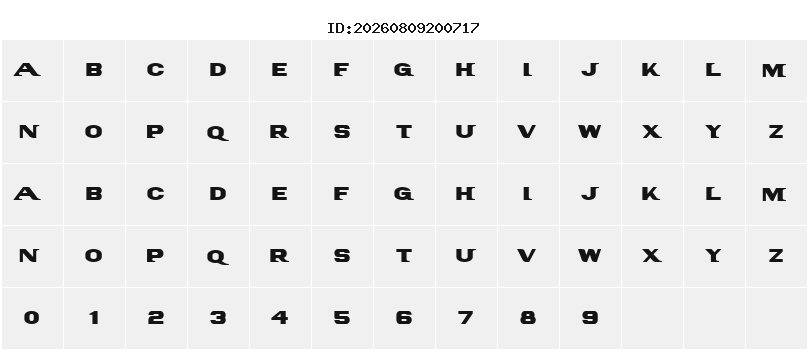
About PanAm LogoText.ttf
PanAm LogoText.ttf is a modern, elegant sans-serif font designed for ultimate readability and visual harmony. Perfect for branding, headlines, web design, and print materials.